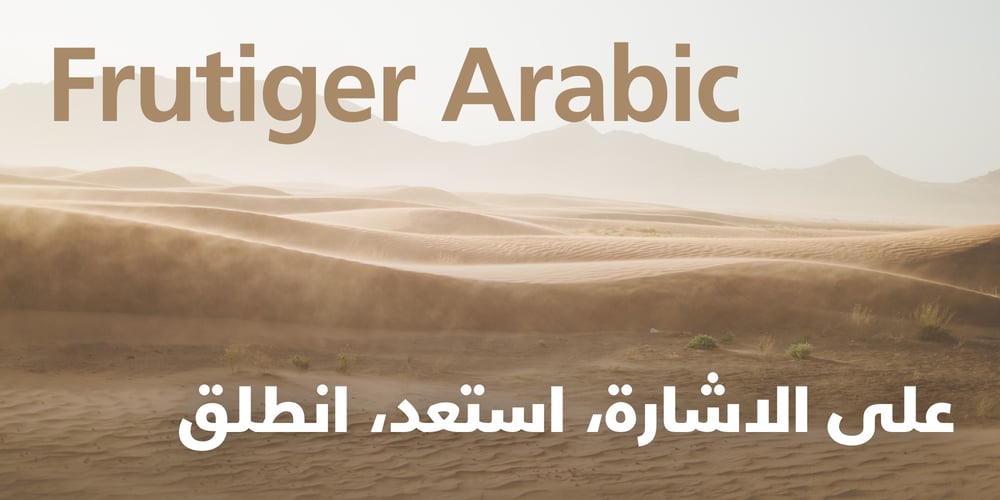
Frutiger Arabic Font Family was designed by Adrian Frutiger, Nadine Chahine and published by Linotype. Frutiger Arabic contains 8 styles and family package options. Neue Frutiger Arabic was created by Nadine Chahine and a team of designers and font engineers from the Monotype Studio, under the direction of Monotype type director Akira Kobayashi. The family is available in 10 weights from Ultra Light to Extra Black.Neue Frutiger Arabic embodies the same warmth and clarity as Adrian Frutiger’s original design, but allows brands to maintain their visual identity, and communicate with a consistent tone of voice, regardless of the language. It is part of the Neue Frutiger World collection, offering linguistic versatility across environments – suited to branding and corporate identity, advertising, signage, wayfinding, print, and digital environments.